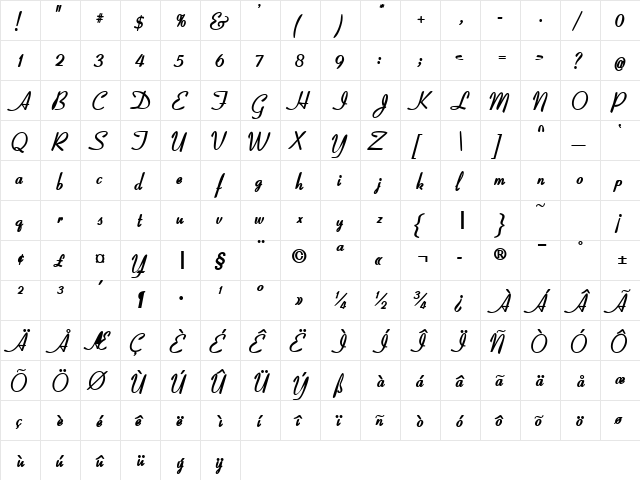
CoronetSSK Bold
Design Context for CoronetSSK Typeface
CoronetSSK is a composed and adaptable typeface that performs quietly and consistently across a wide range of design contexts. Its bold stroke weight gives it real presence on the page.